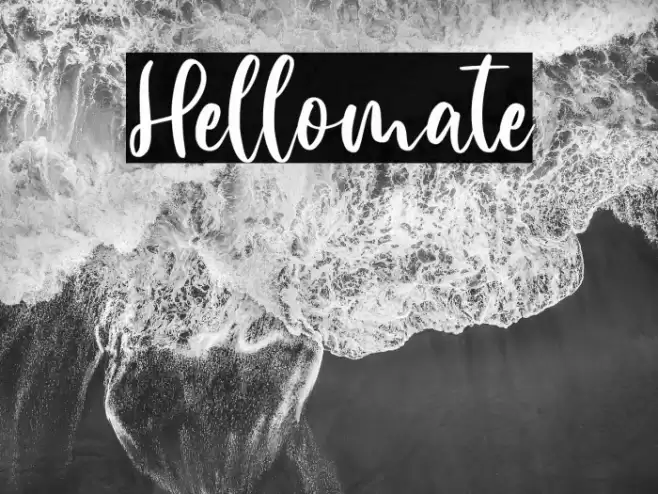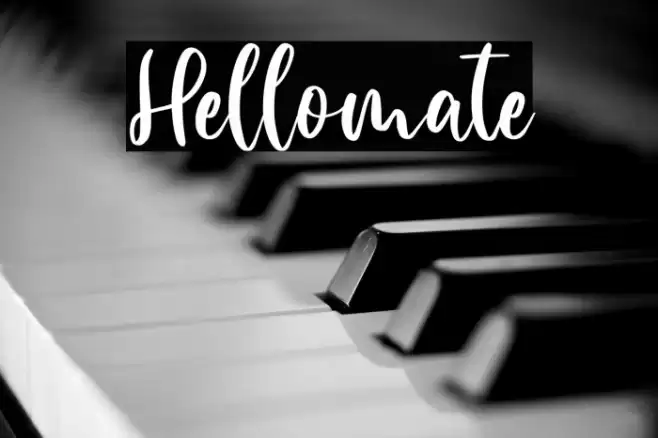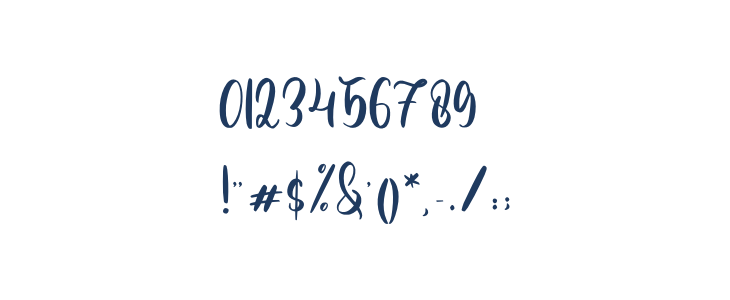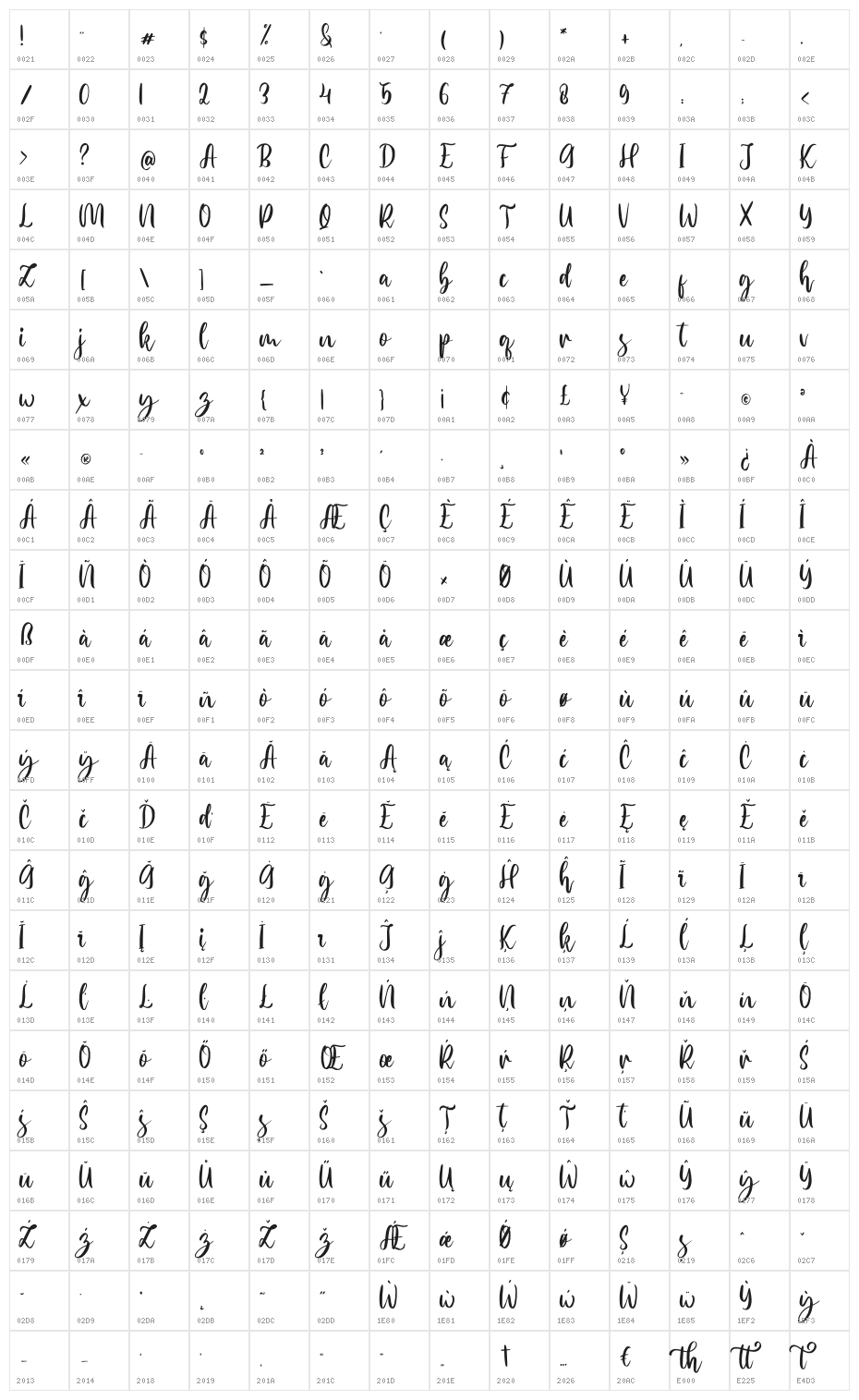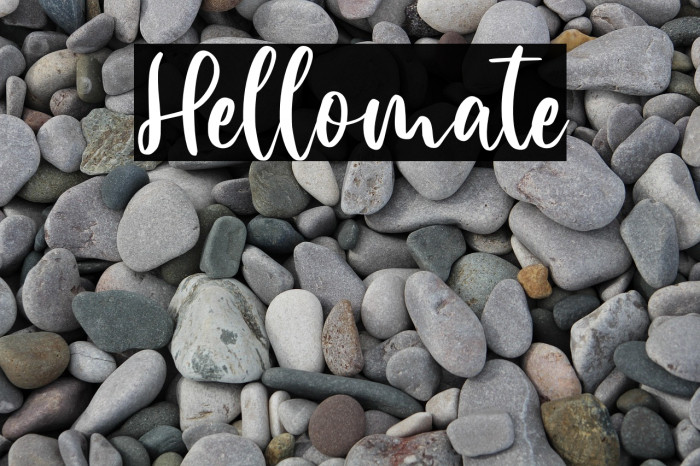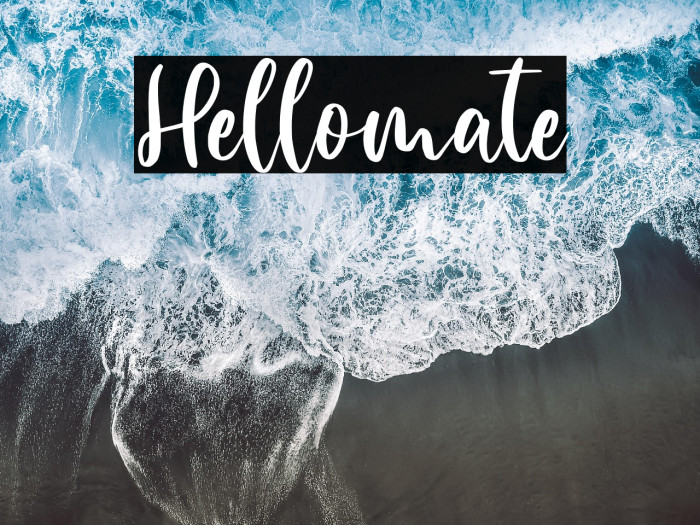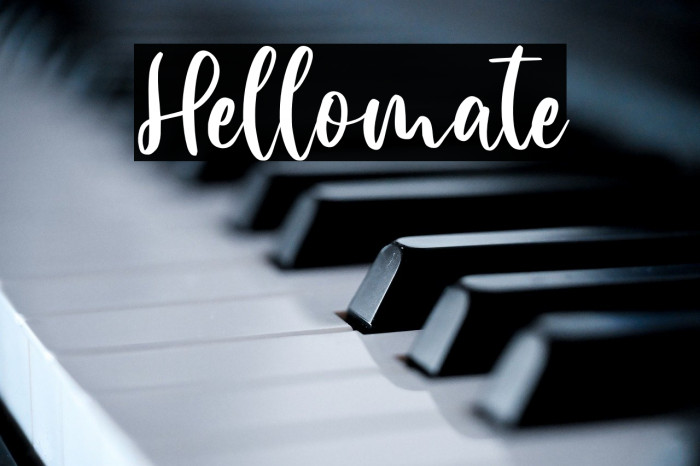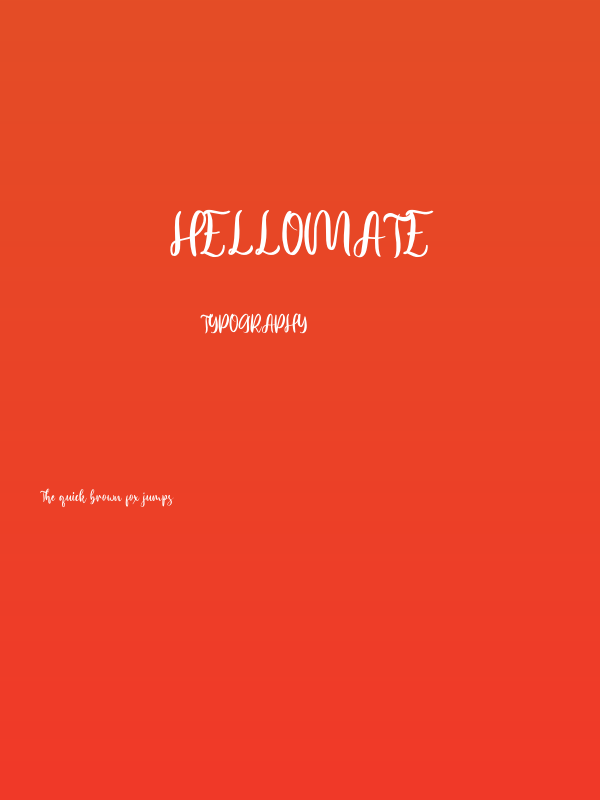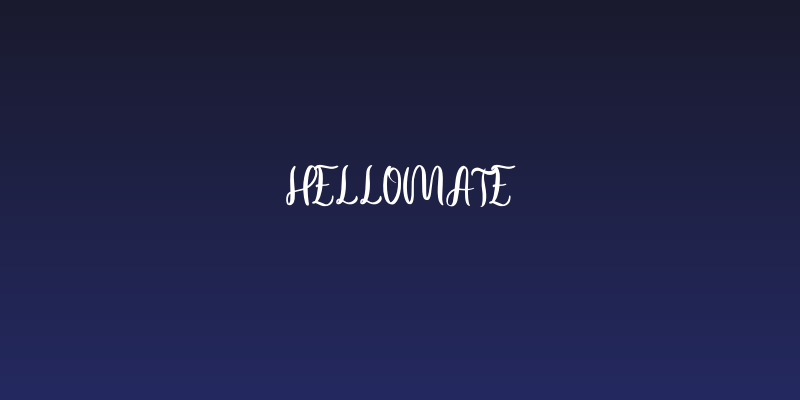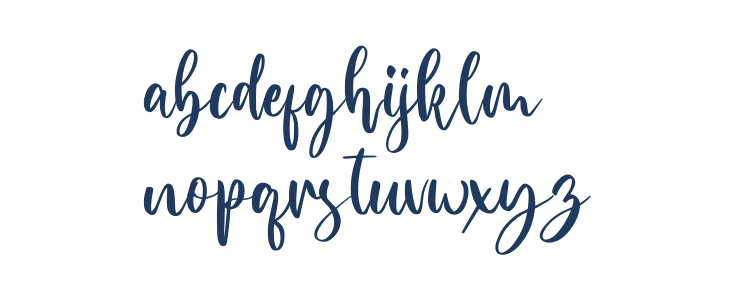
Hellomate Font
Hellomate Description
This font features a lively and dynamic script style with a handwritten appearance. The letters are connected, creating a fluid and continuous flow that mimics natural handwriting. The uppercase letters are bold and expressive, while the lowercase letters maintain a consistent rhythm and style. The numerals and special characters are designed to complement the alphabet, maintaining the same playful and energetic feel. The overall design is both elegant and approachable, making it suitable for a variety of creative applications.
A lively, handwritten script font with bold, connected letters from Uncategorized fonts.
- Proposed Projects: Ideal for wedding invitations, greeting cards, branding, and social media graphics.
- Use Case: Logos, Headlines, Invitations